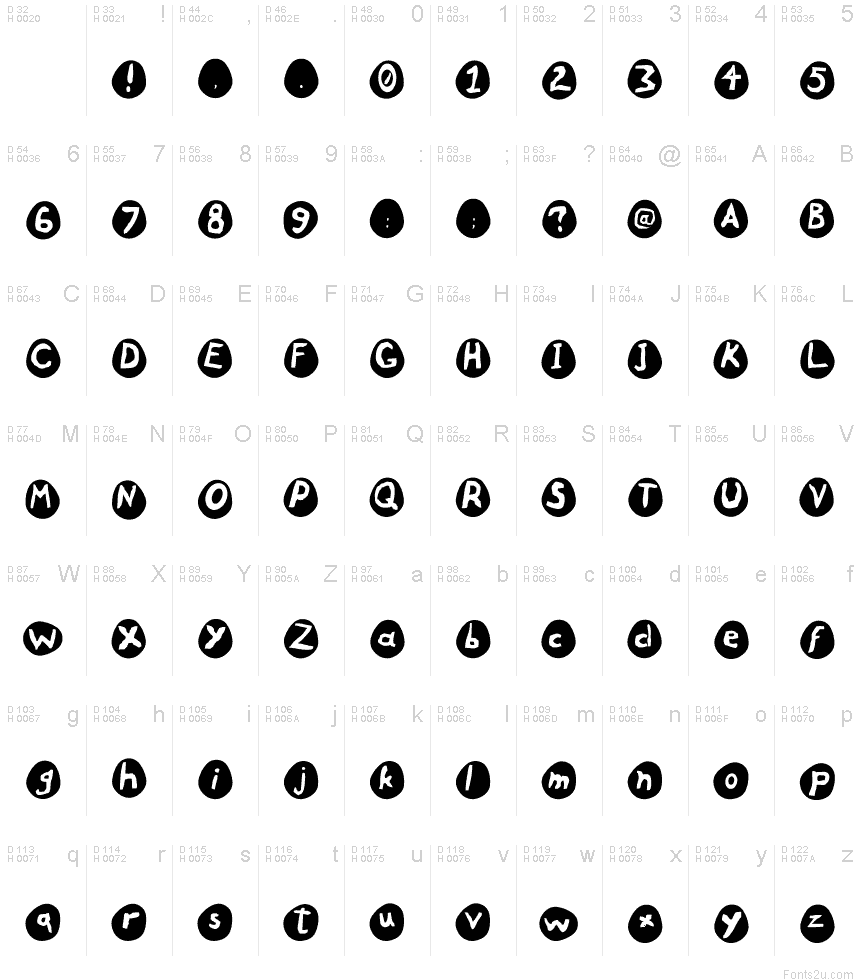
Eggs
Eggs font is a free decorative display typeface that turns every letter into a bold, inky oval. Each character sits inside a chunky, egg-shaped black blob with loose, hand-drawn white strokes that feel playful and a bit wobbly, like chalk on a blackboard or a rubber stamp on craft paper. The irregular rhythm and snug spacing create a bouncy, eye-catching texture that pops instantly at larger sizes.
Using Eggs font, you can bring quirky charm to Easter promotions, kids’ party invitations, farmer’s market signage, food and egg-carton packaging, playful logos, or social media graphics. This free font shines when you let it be the star headline and pair it with a clean, neutral sans-serif for supporting text.